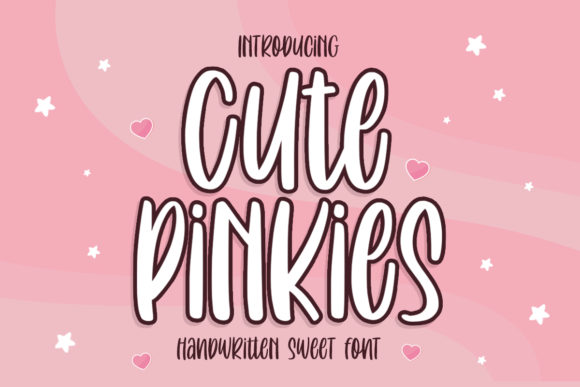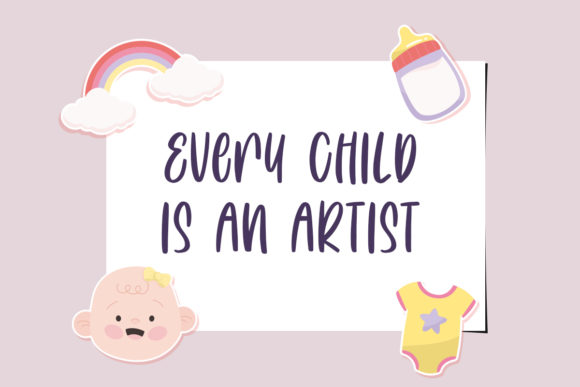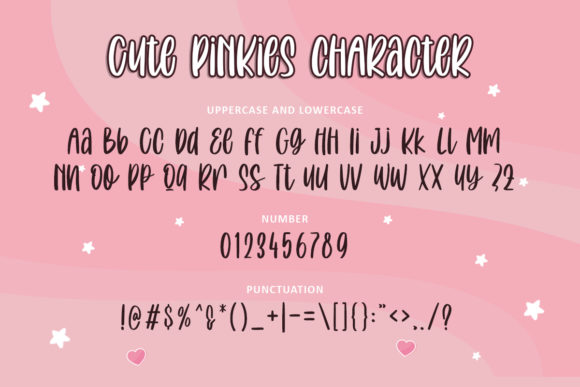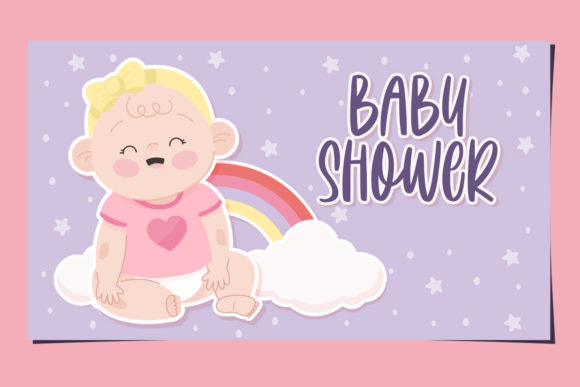
Cute Pinkies Font: A Playful Handwritten Font for DIY & Cricut Projects!
About the Cute Pinkies Font
Add a touch of class to your work with the Cute Pinkies Font, a truly exceptional typeface. Cute Pinkies is a cute and casual handwritten font with an incredibly friendly feel. Whether you’re looking for fonts for Instagram or calligraphy scripts for DIY projects, Cute Pinkies will turn any creative idea into a true piece of art!
Cute Pinkies excels in short, impactful designs such as social media posts, logos for craft businesses, or playful packaging. Its informal style works well for headings, short quotes, and even handwritten-style labels. However, avoid using it for body text or lengthy paragraphs; its casual nature makes it less legible for extended reading. Similarly, it’s not ideal for UI elements requiring high readability.
Pairing Cute Pinkies with a clean sans-serif like Lato or Open Sans provides a strong contrast, balancing its informal script with a modern, legible counterpart. For a more sophisticated feel, consider a classic serif such as Garamond or Playfair Display. These pairings allow Cute Pinkies to shine as a charming accent without overwhelming the overall design.
The font’s core personality is undeniably friendly and approachable, conveying a sense of warmth and casual charm. It’s best suited for brands focusing on handmade products, children’s items, or businesses emphasizing a personable and approachable image.